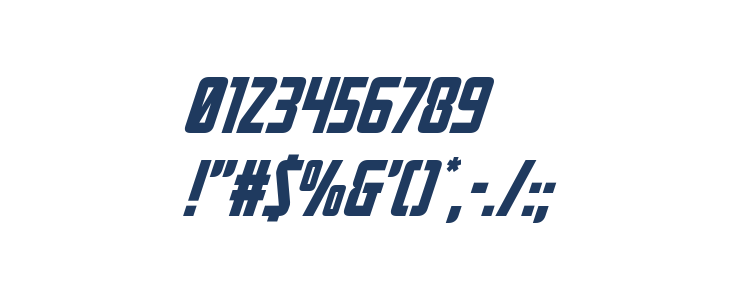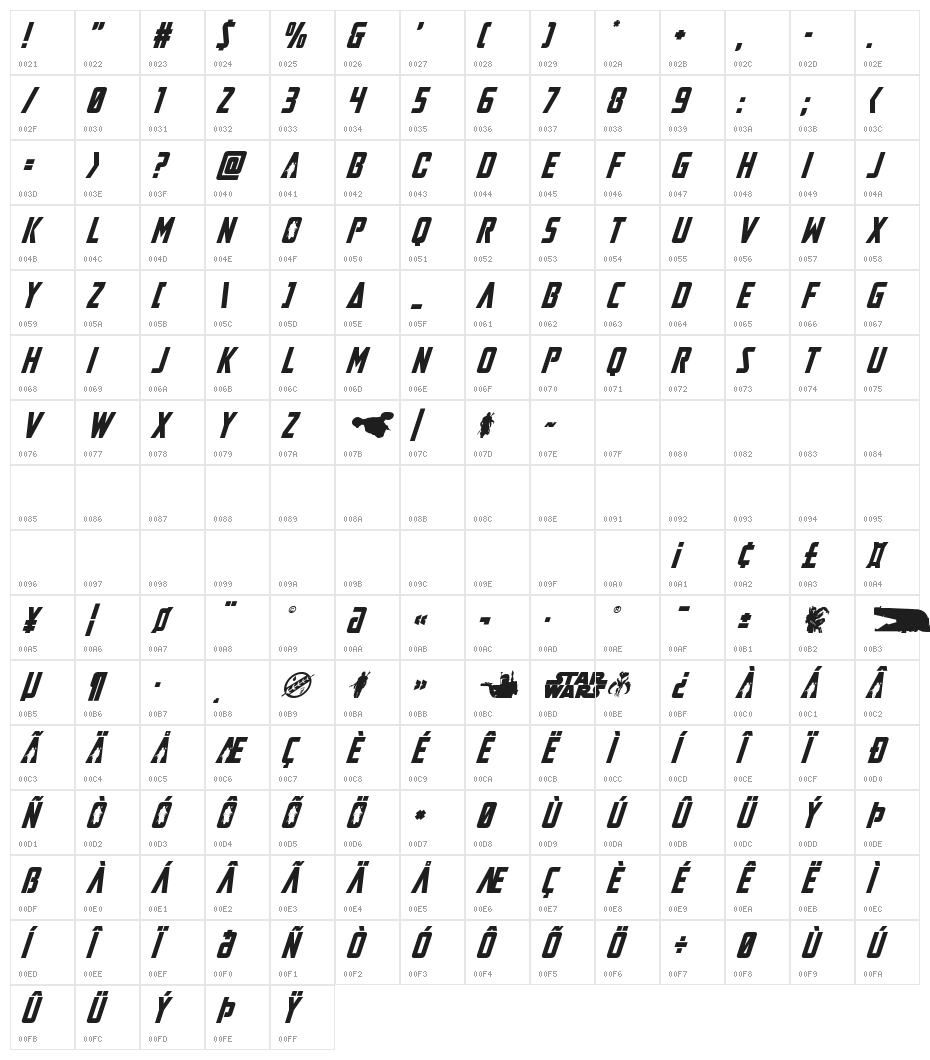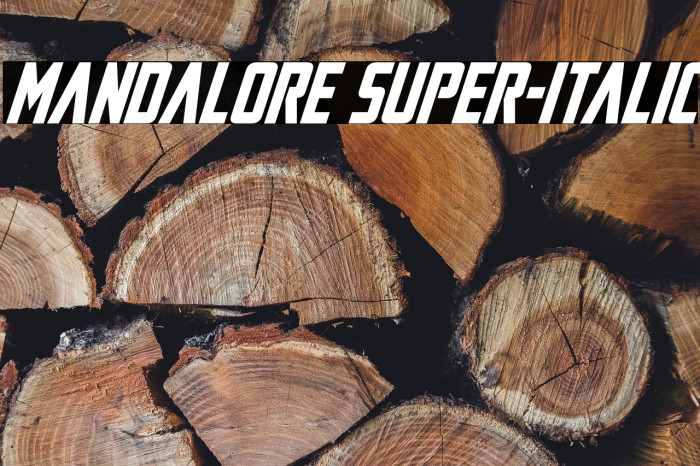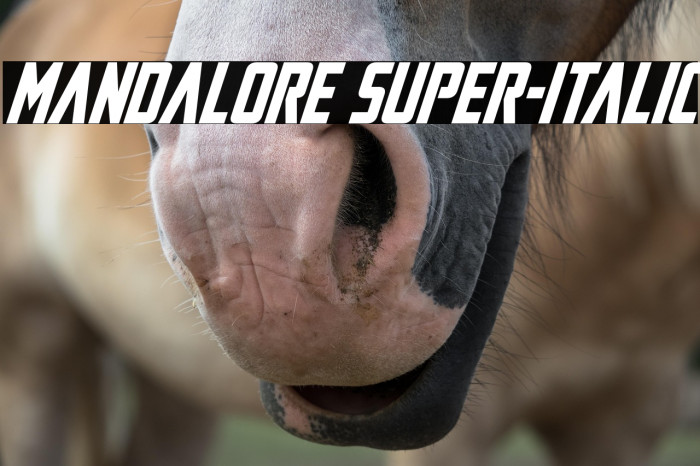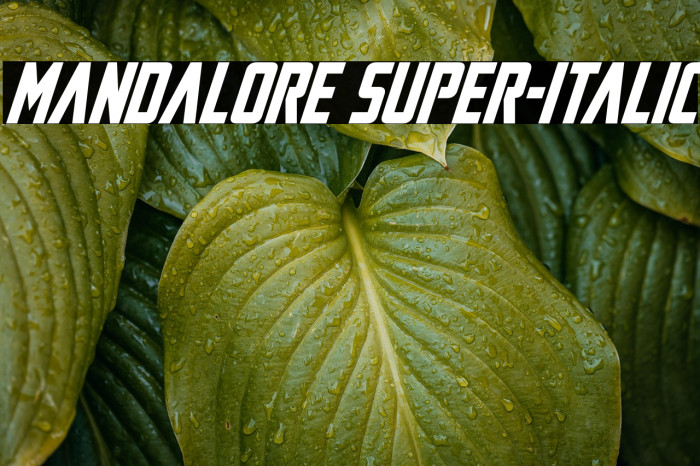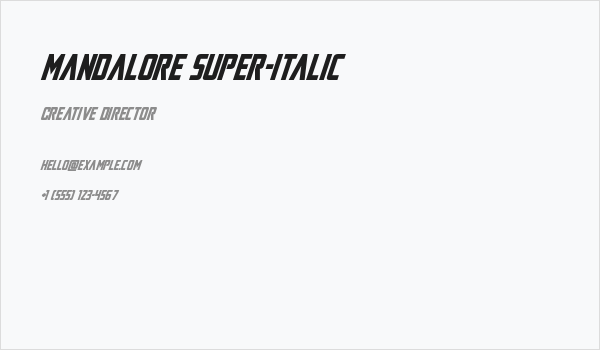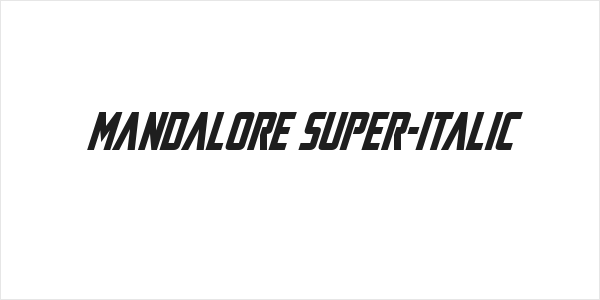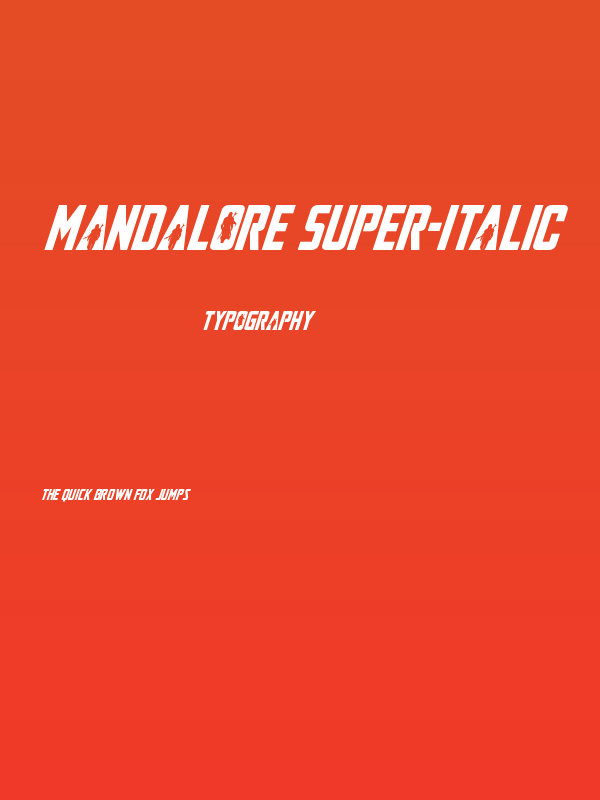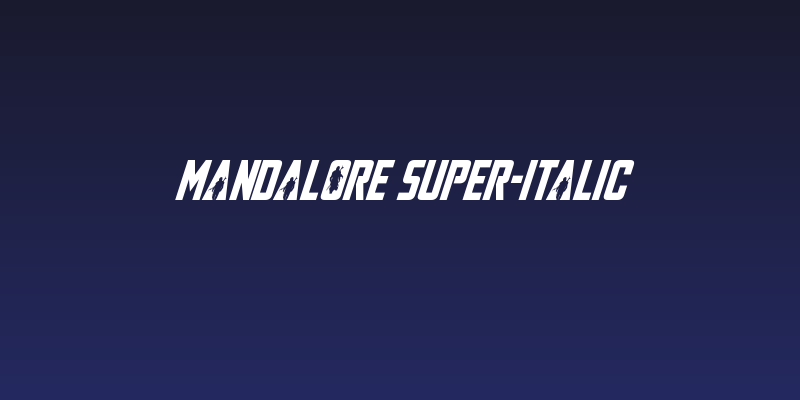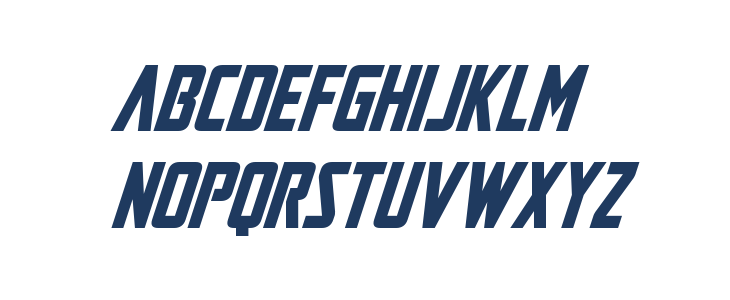
Mandalore Super-Italic Font
Mandalore Super-Italic Description
This dynamic and bold font features a strong italic slant, giving it a sense of motion and energy. The characters are angular and sharp, with a futuristic and aggressive style. The uppercase letters are particularly striking, with some characters incorporating unique design elements that add to the font's distinctive appearance. The numbers and special characters maintain the same bold and italicized style, ensuring consistency across all glyphs. This font is designed to stand out, making it ideal for projects that require a strong visual impact.
| Overall Style | Futuristic, Dynamic |
| Proposed Projects | Ideal for sci-fi themed designs, video game titles, movie posters, and branding that requires a bold statement. |